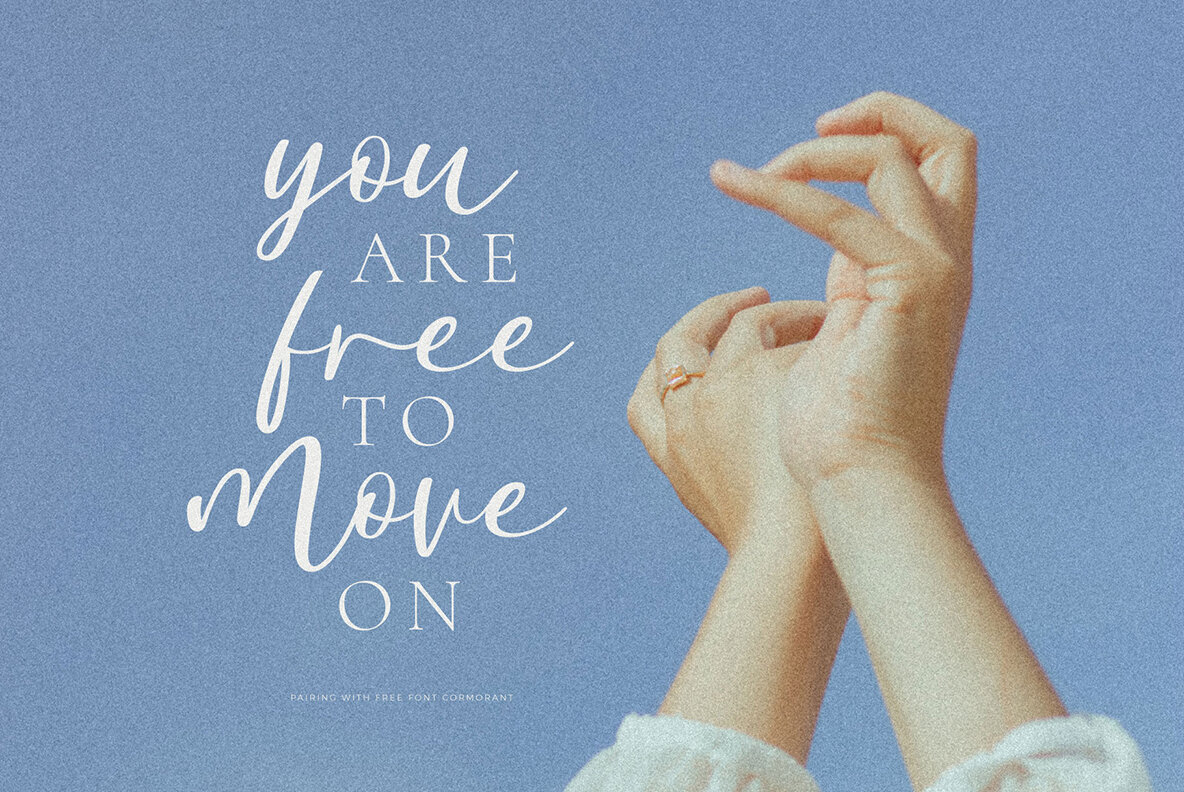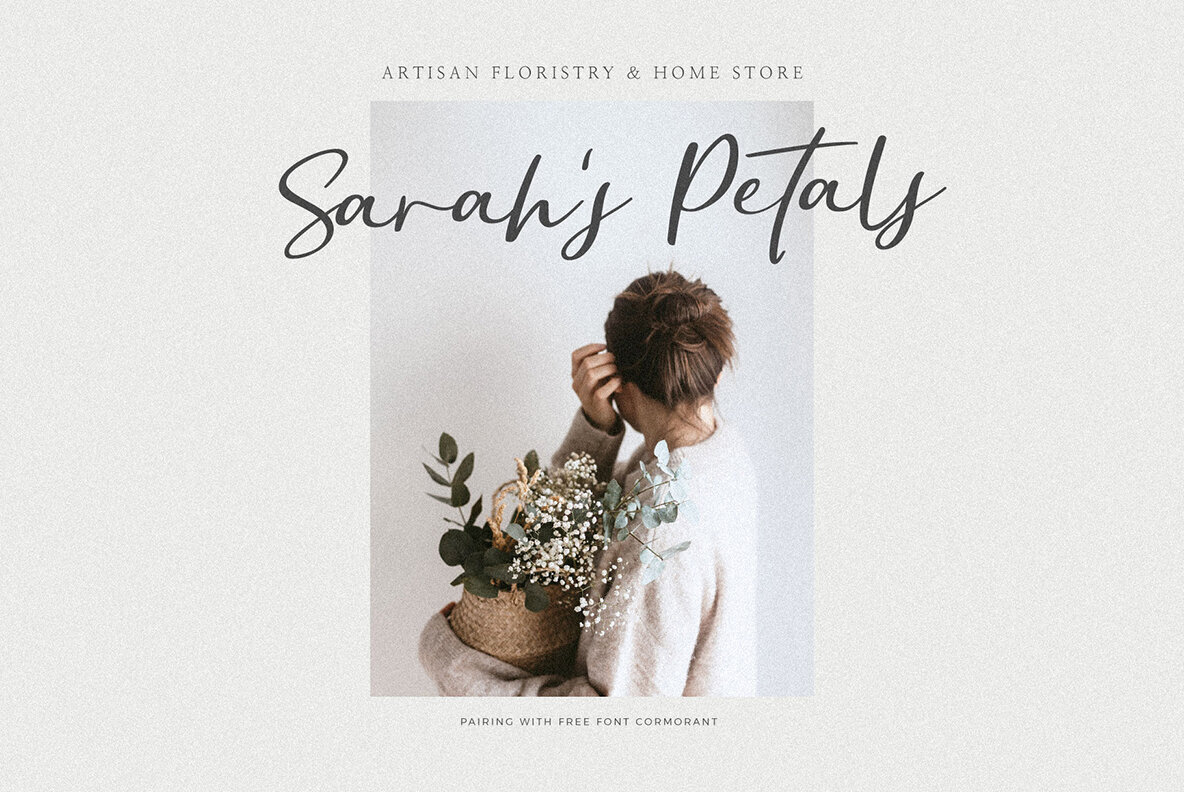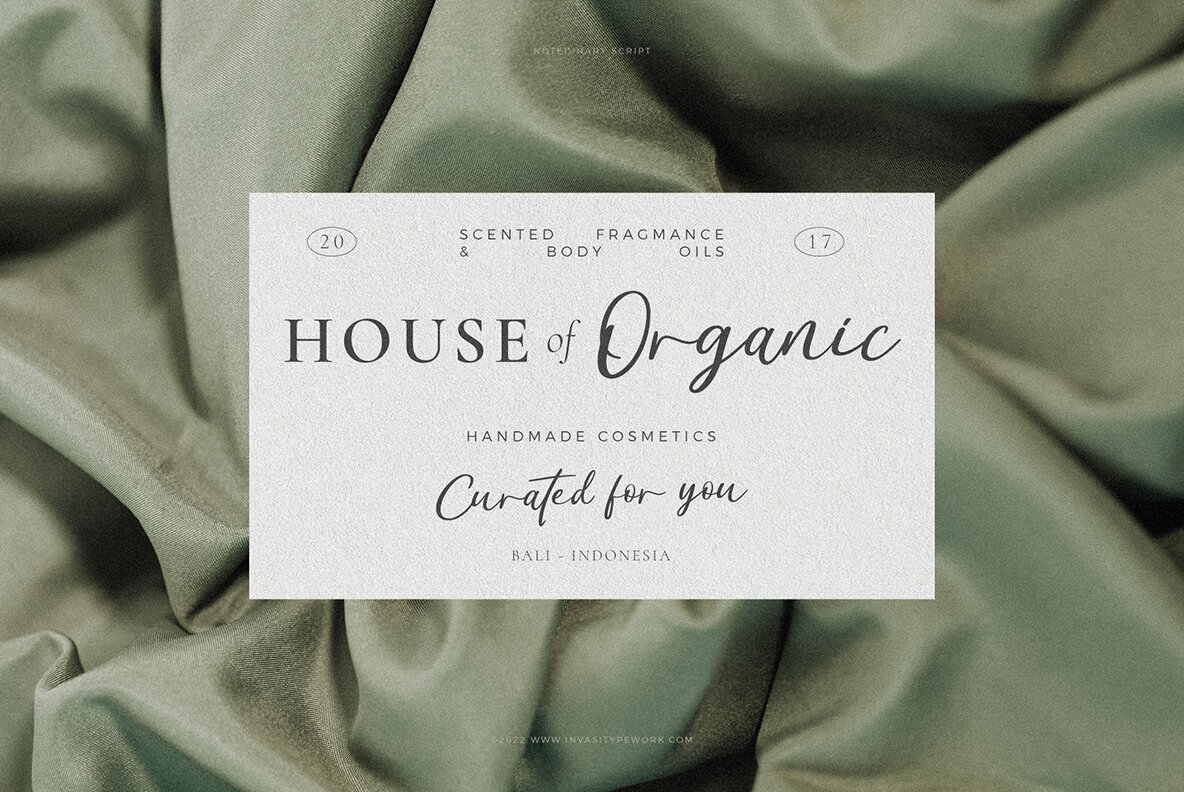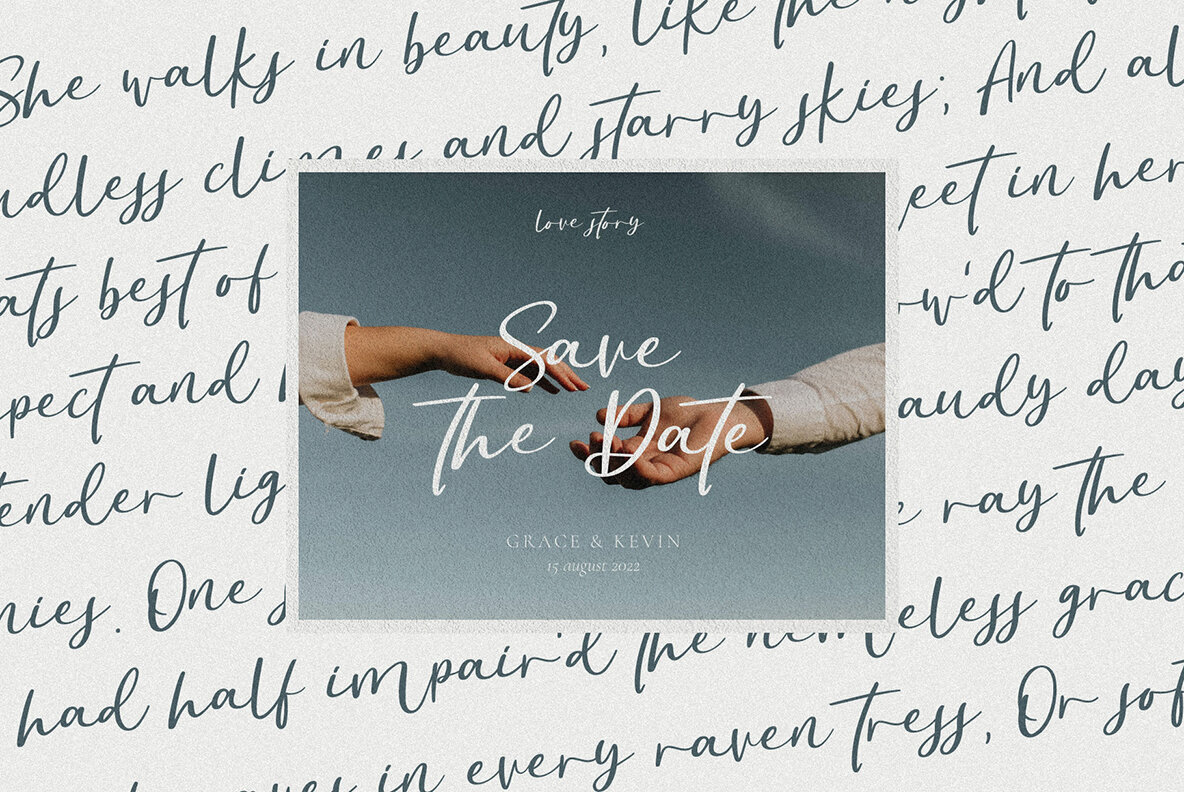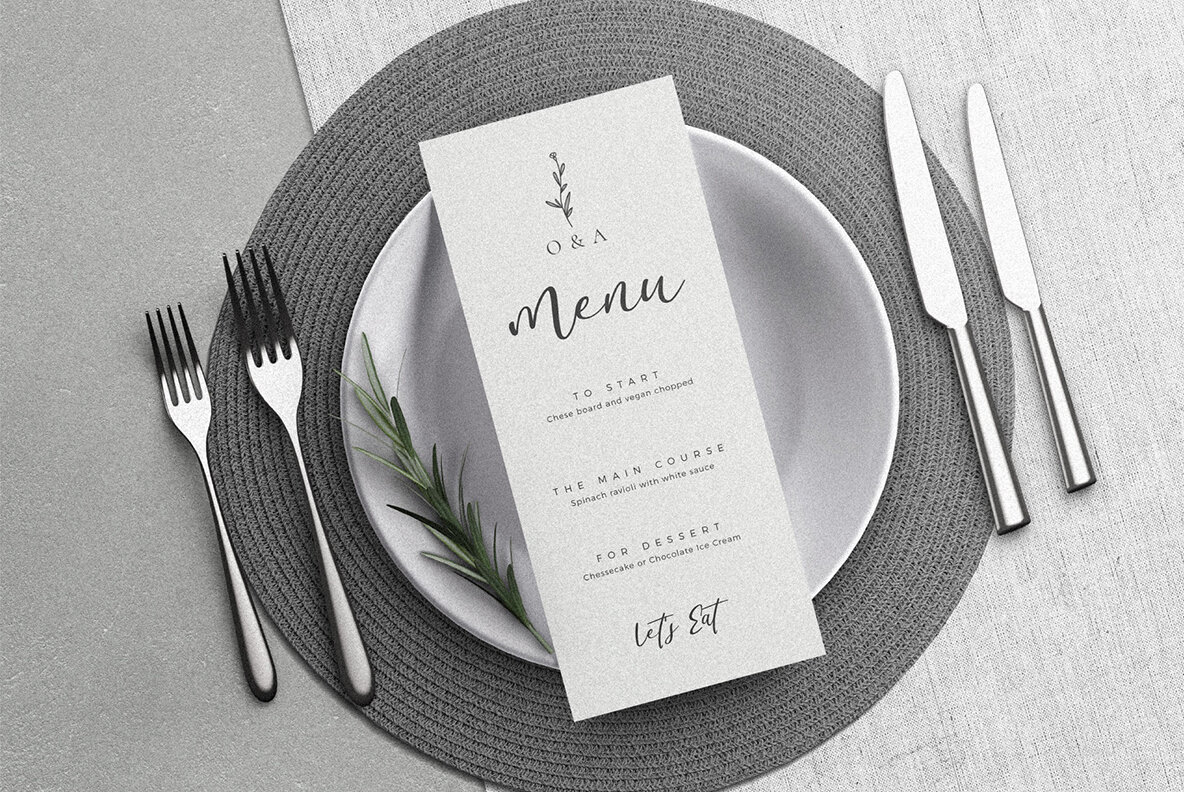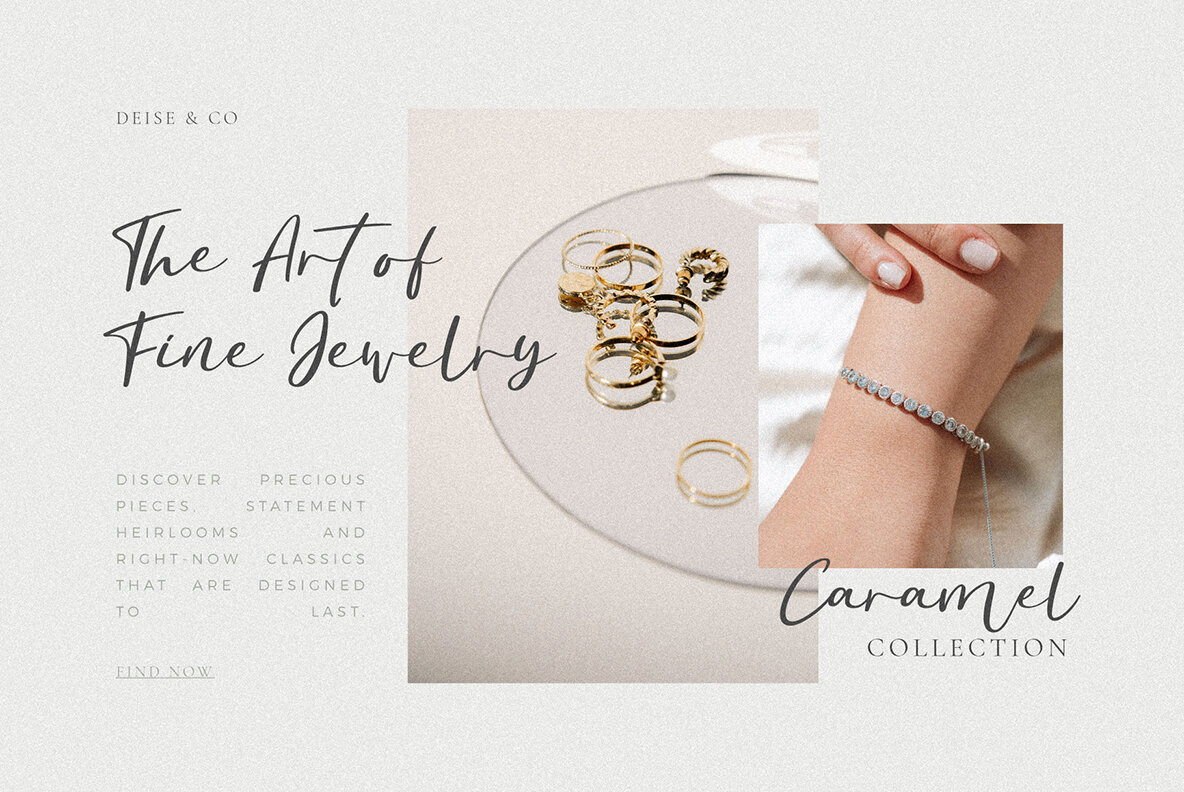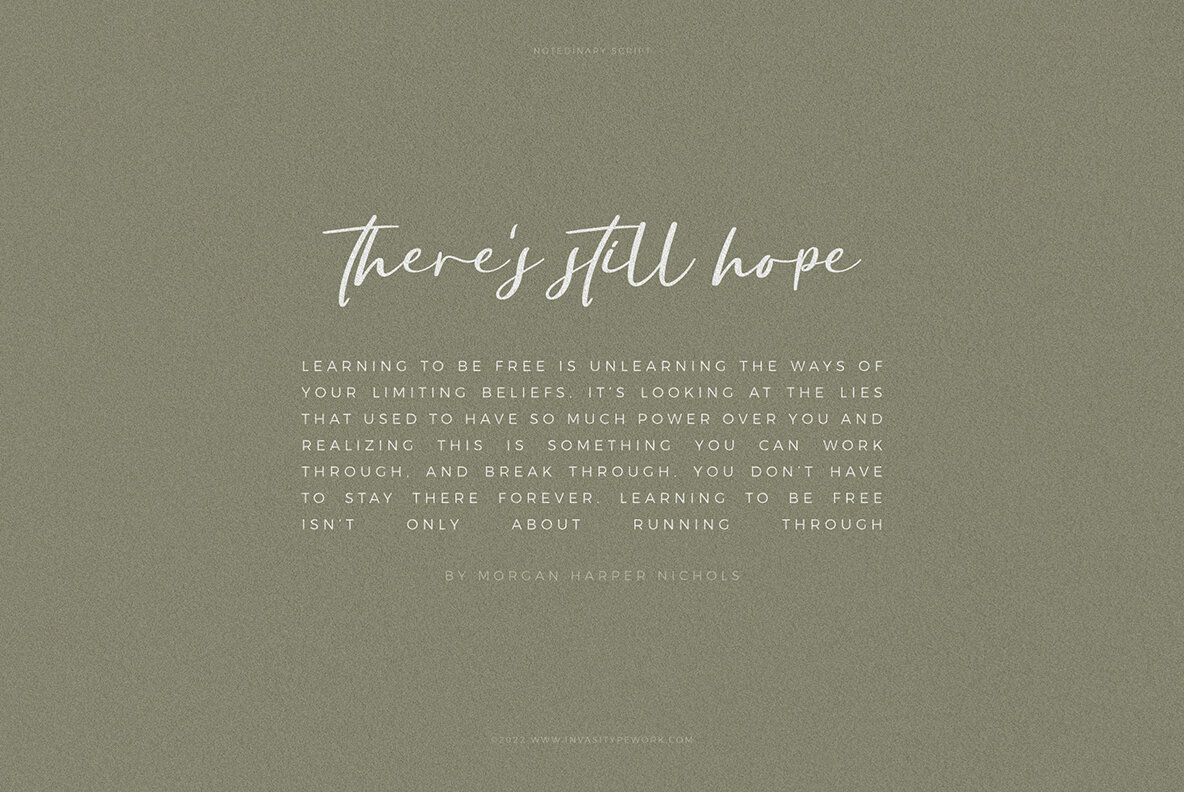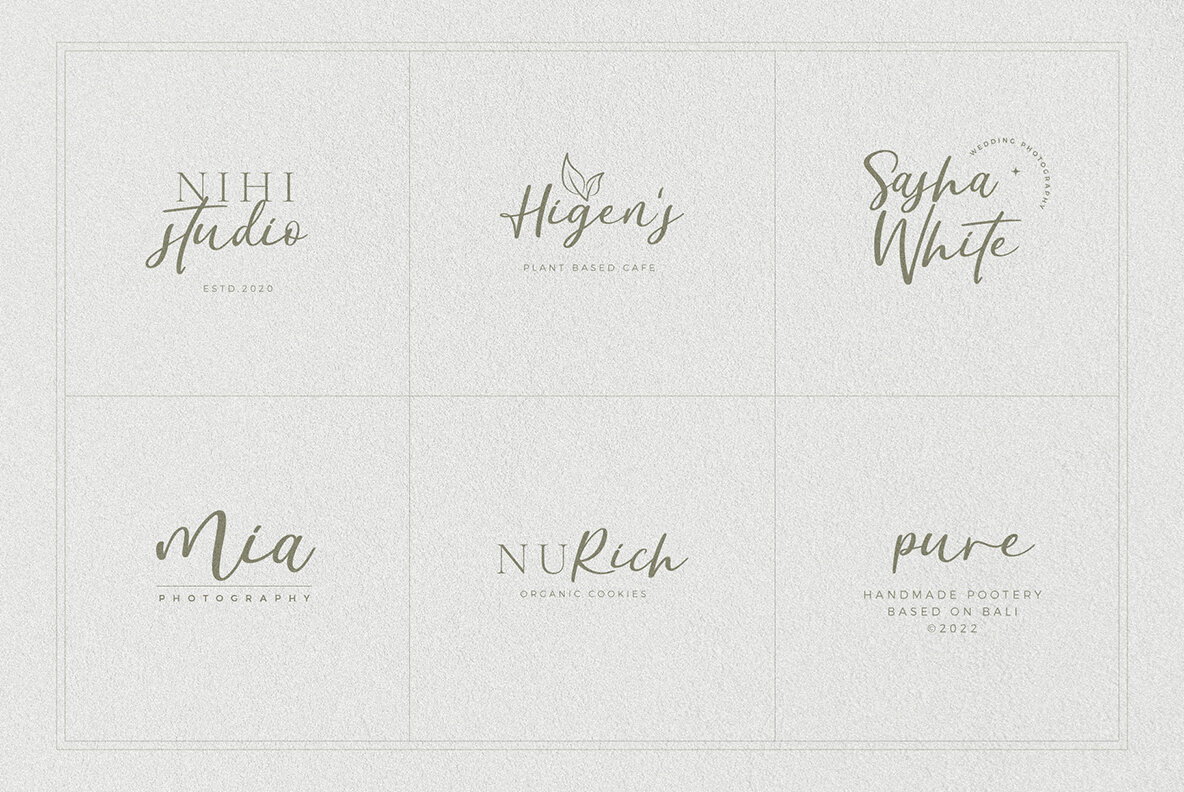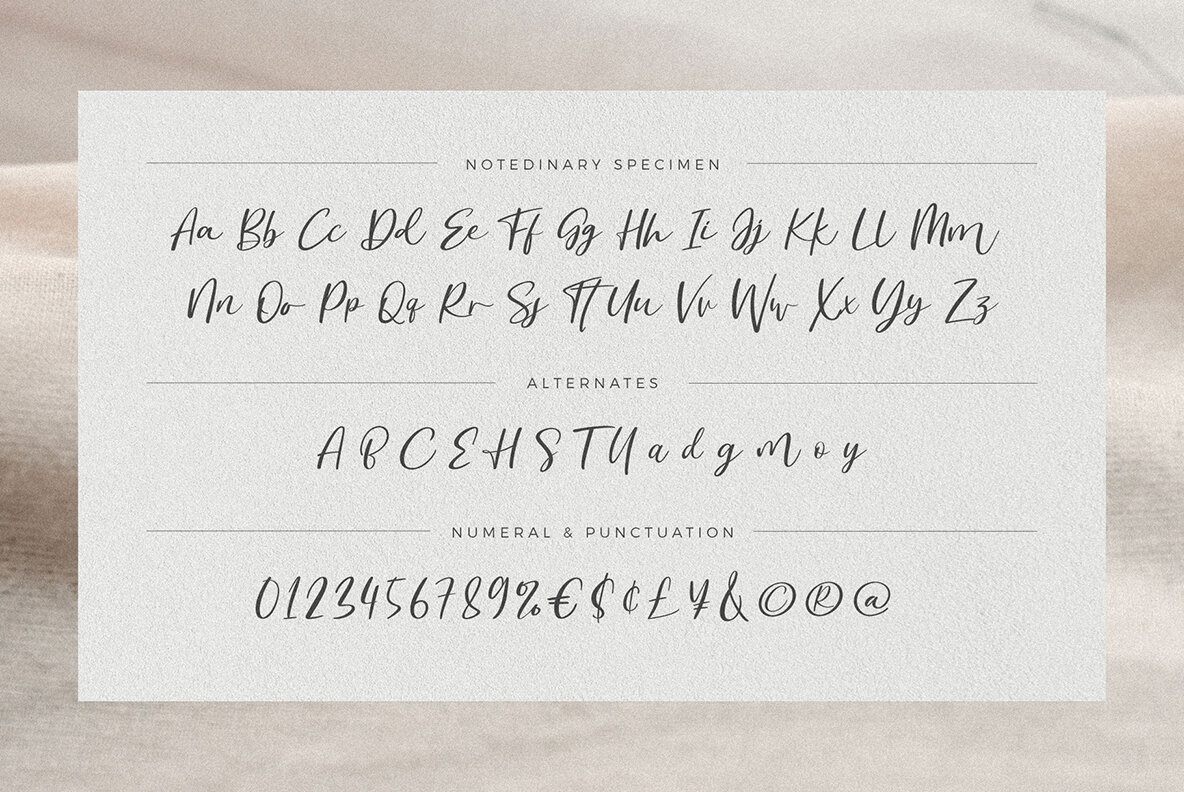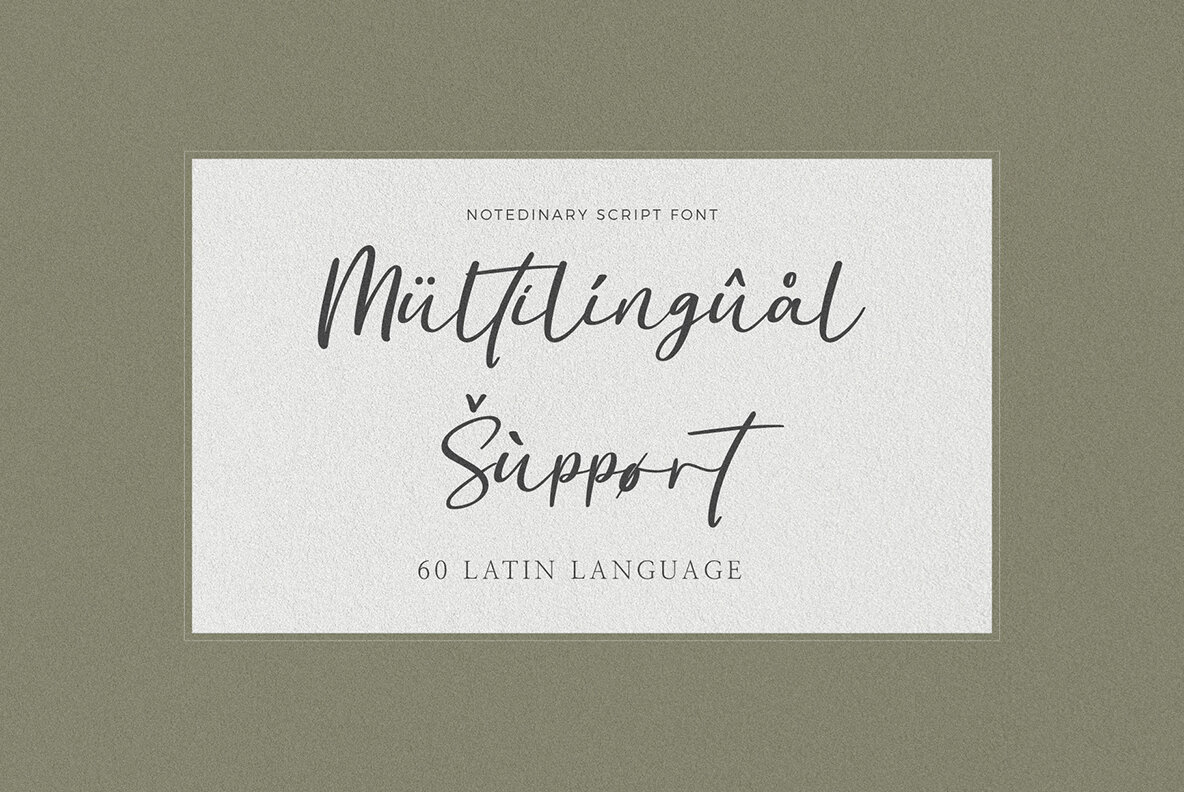
Notedinary Font
Notedinary Regular
The elegant script calligraphy of Notedinary is perfect for your wedding designs or branding projects. In addition, this delicate design supports 60+ Latin based languages.